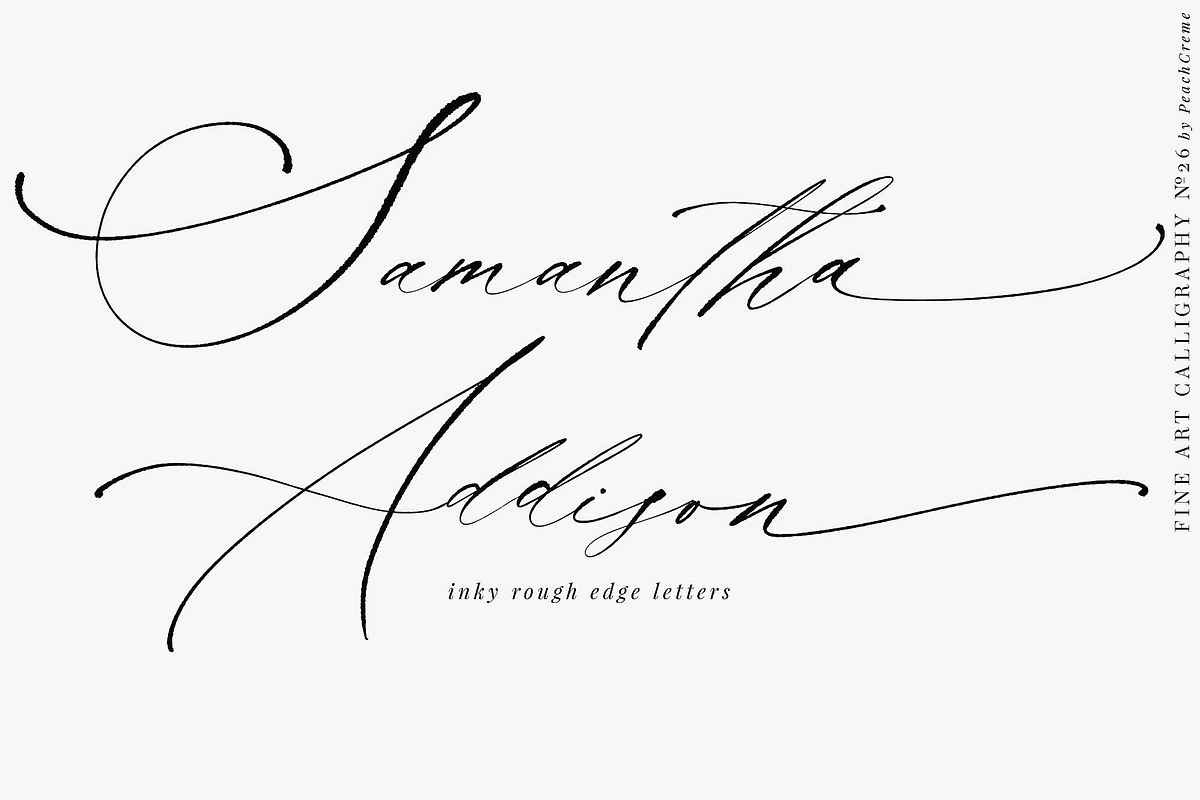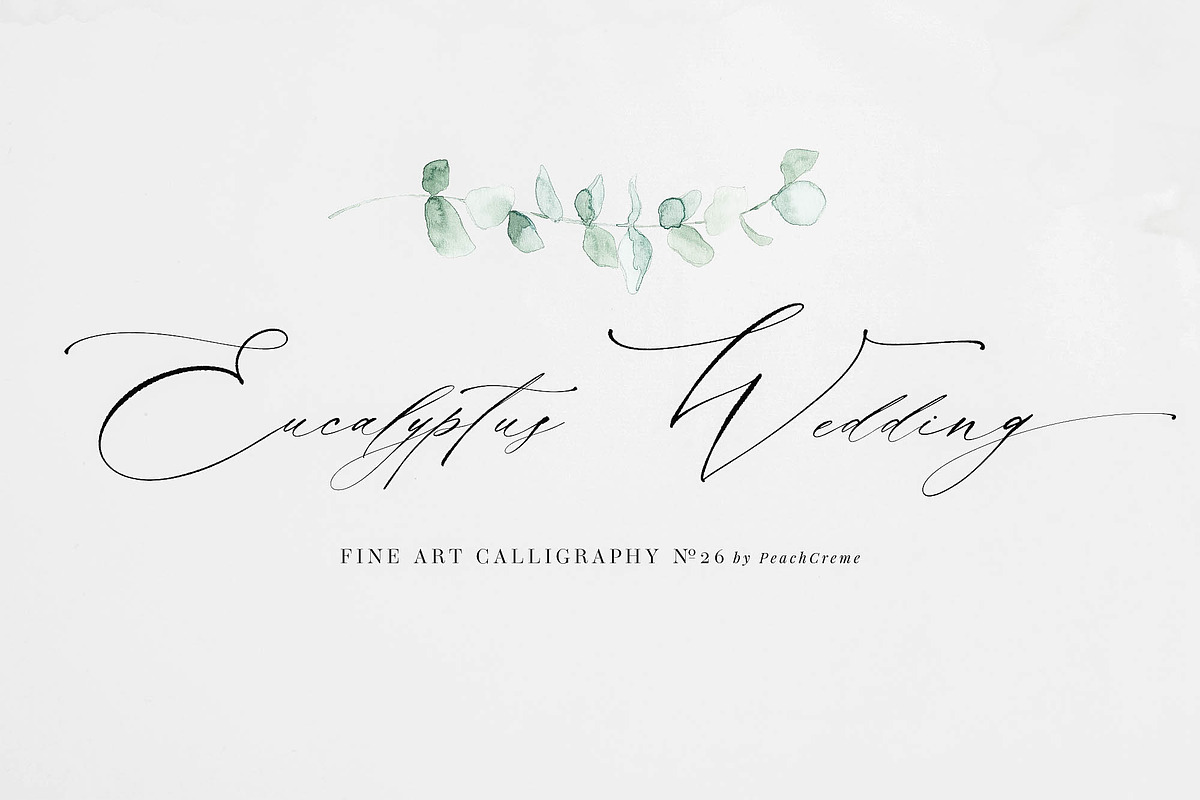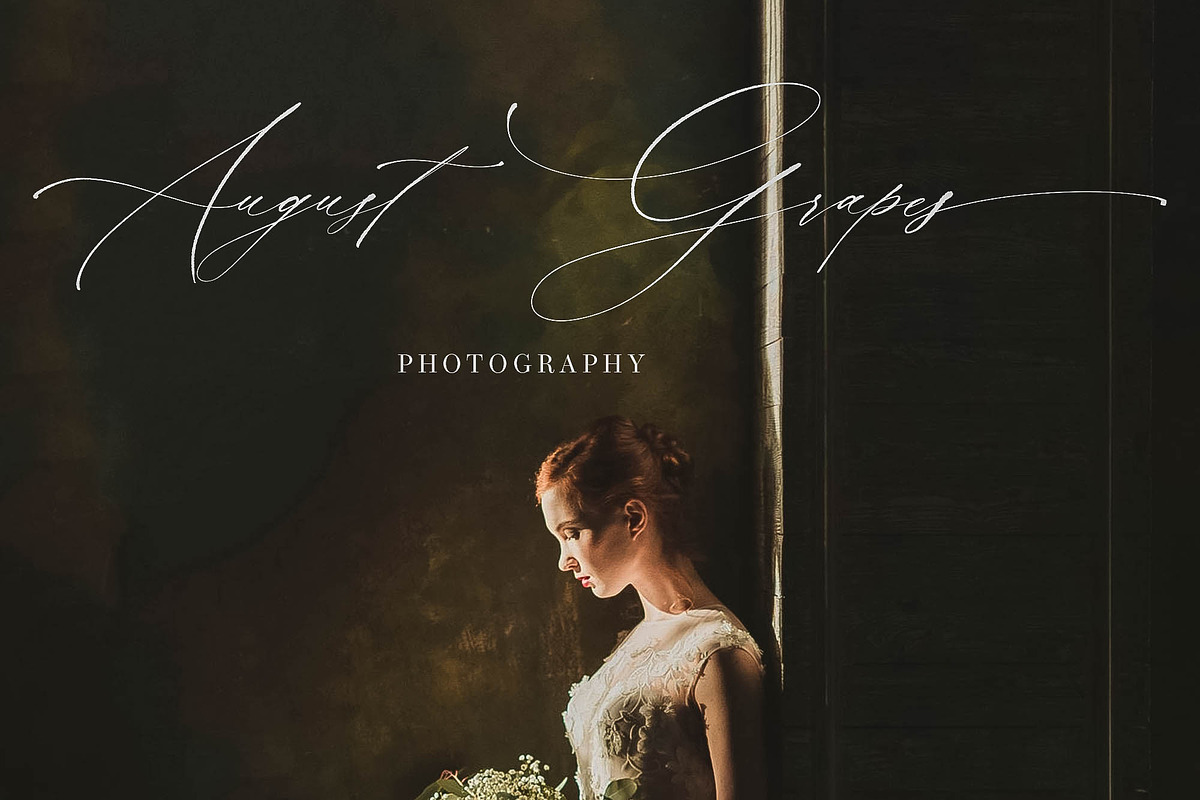
La Bohemia Font
La Bohemia is a modern calligraphy font with a contemporary and sophisticated feel. It’s perfect for branding, wedding invitations, cards, and even wine labels. The font includes a full set of gorgeous uppercase and lowercase letters, numerals, a large range of punctuation and ligatures. All lowercase letters include beginning and ending swashes, giving a realistic hand-lettered style. The texture of the font is inky and rough. It expresses the beauty of handwriting. What you get, darling?